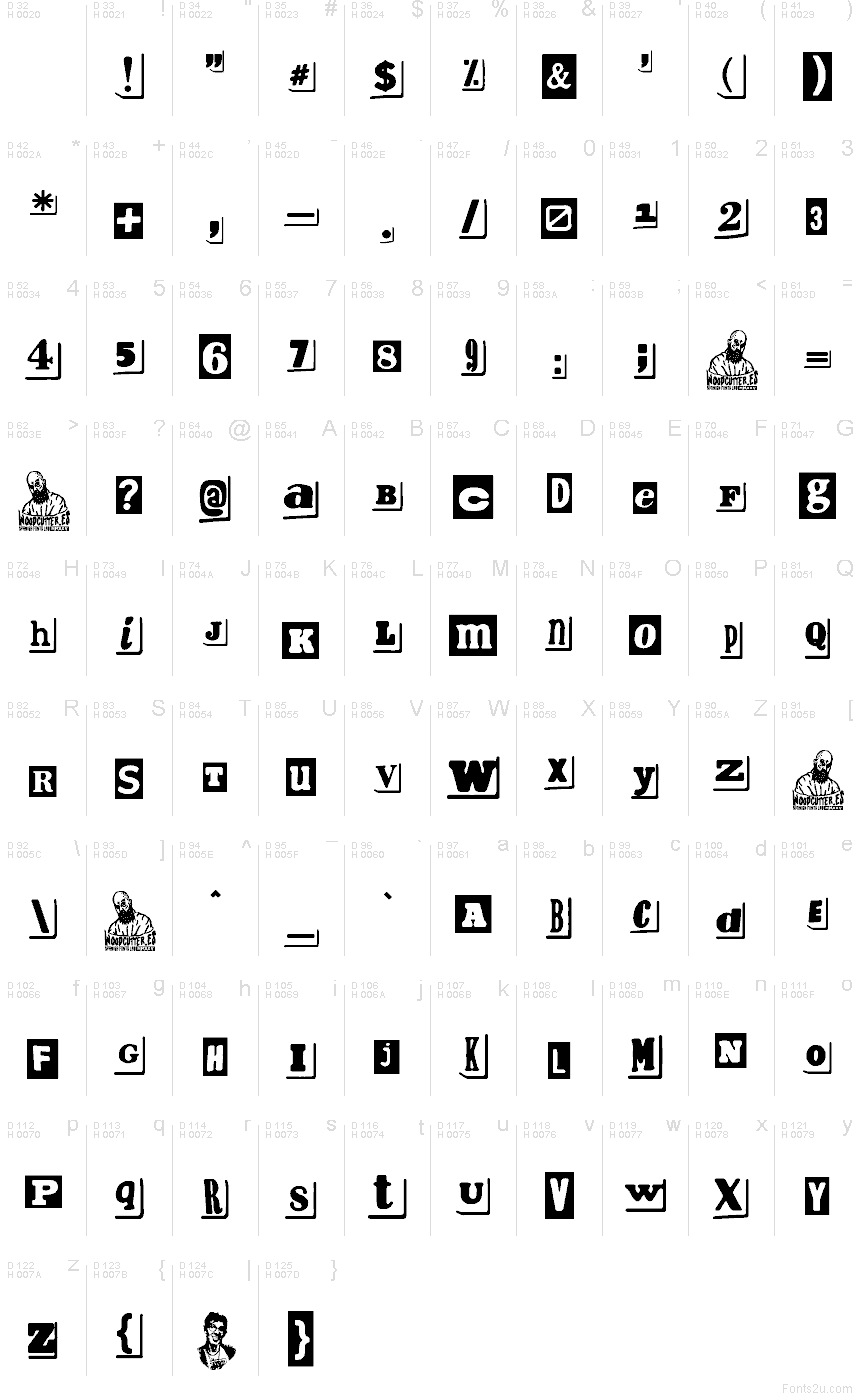
Предварительный просмотр шрифта Punk Militia Spain
Punk Militia Spain font by Woodcutter is a free distorted display typeface that looks like it’s been hacked together from photocopied letter tiles and ransom notes. Each character sits in its own rough-edged box, wobbling slightly off-center, with thick, inky strokes that feel scraped from a punk zine or DIY gig flyer. The uneven rhythm and gritty contrast give it a loud, confrontational voice that instantly reads as underground and rebellious.
Using Punk Militia Spain, your titles don’t just speak, they shout. This free font works beautifully for band posters, protest graphics, horror or punk zines, DIY packaging, streetwear branding, and social media graphics that need a raw, handmade edge. Keep it big and bold for headlines, then pair it with a clean, neutral sans serif for smaller supporting text to keep the chaos readable.